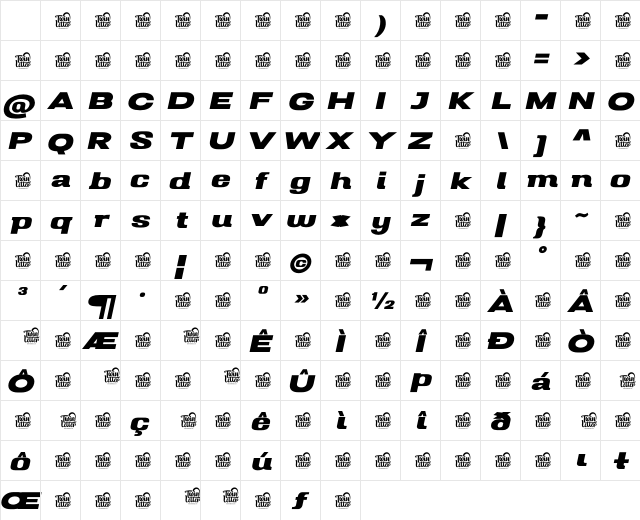
Complete Mugio ExtBd Slant Regular glyph index. Displaying only characters natively supported by Mugio ExtBd Slant Regular font.
Mugio ExtBd Slant is a composed and adaptable typeface that performs quietly and consistently across a wide range of design contexts.